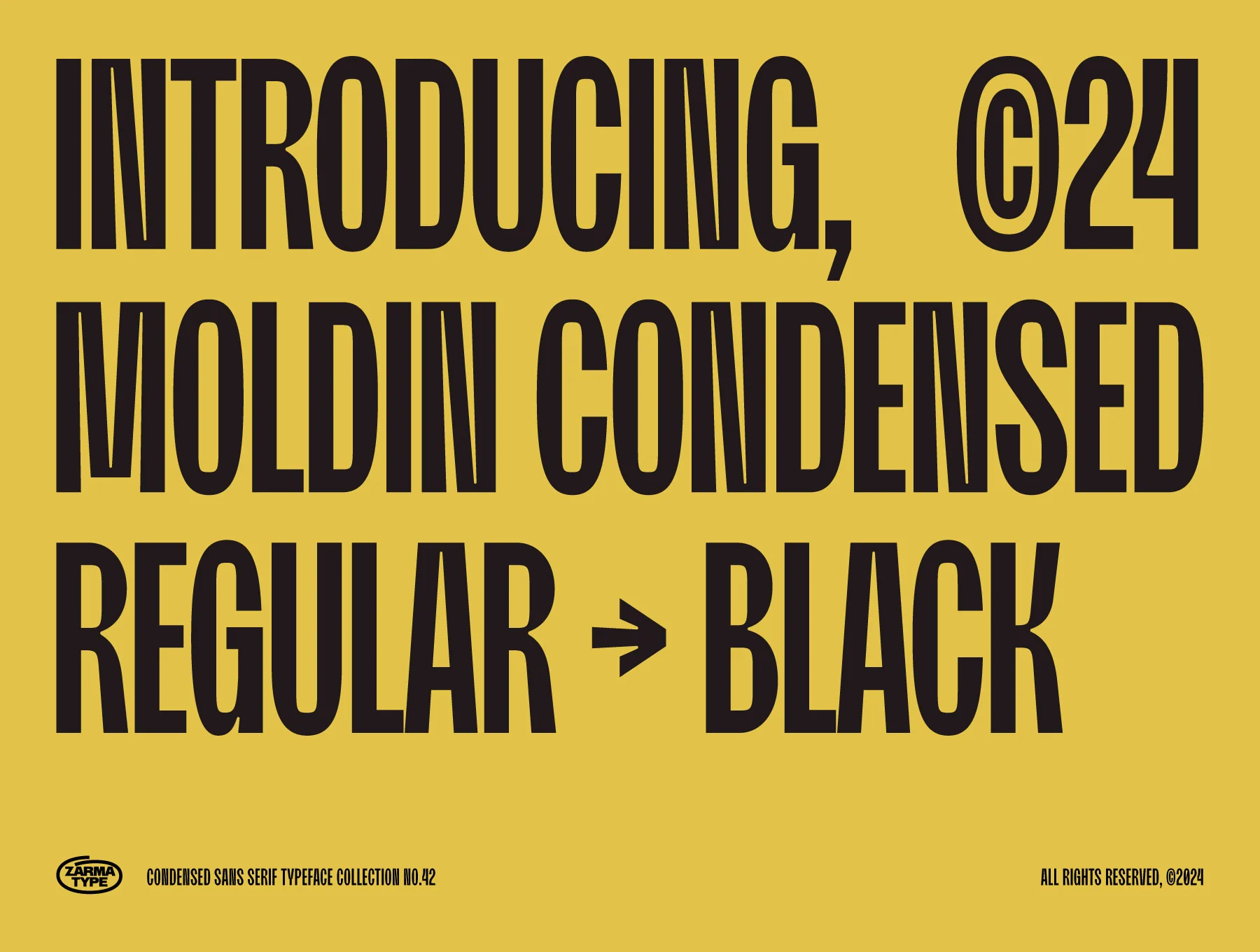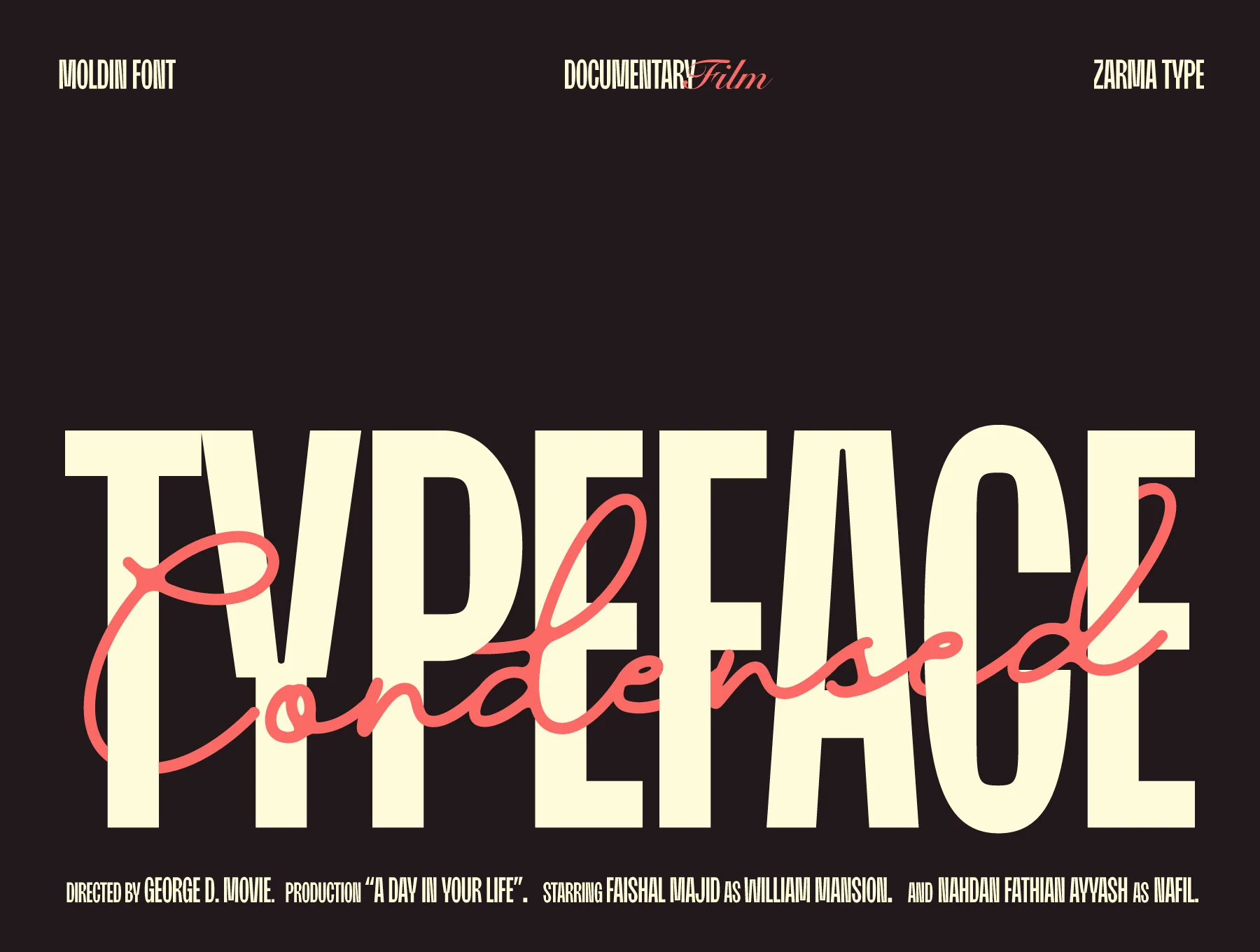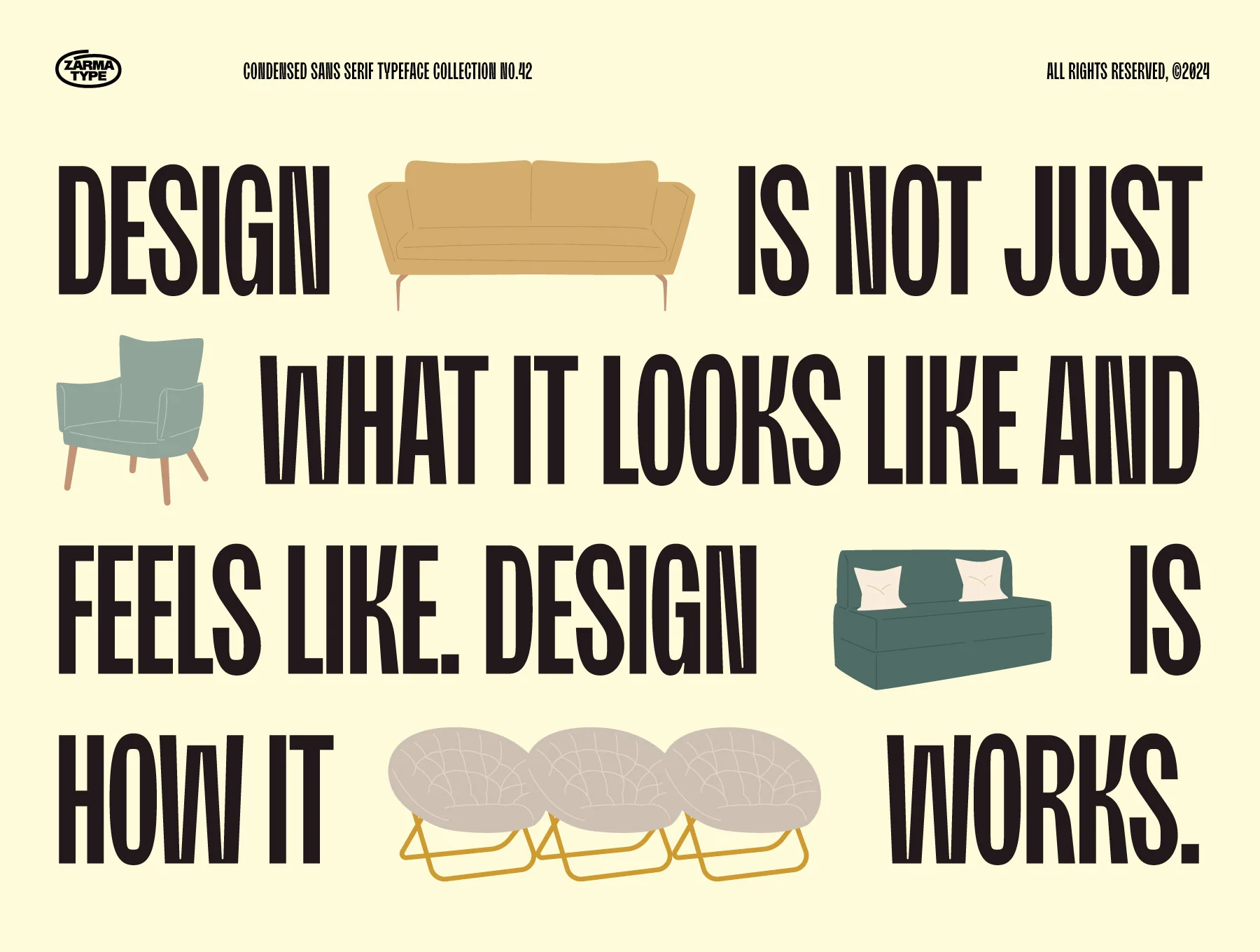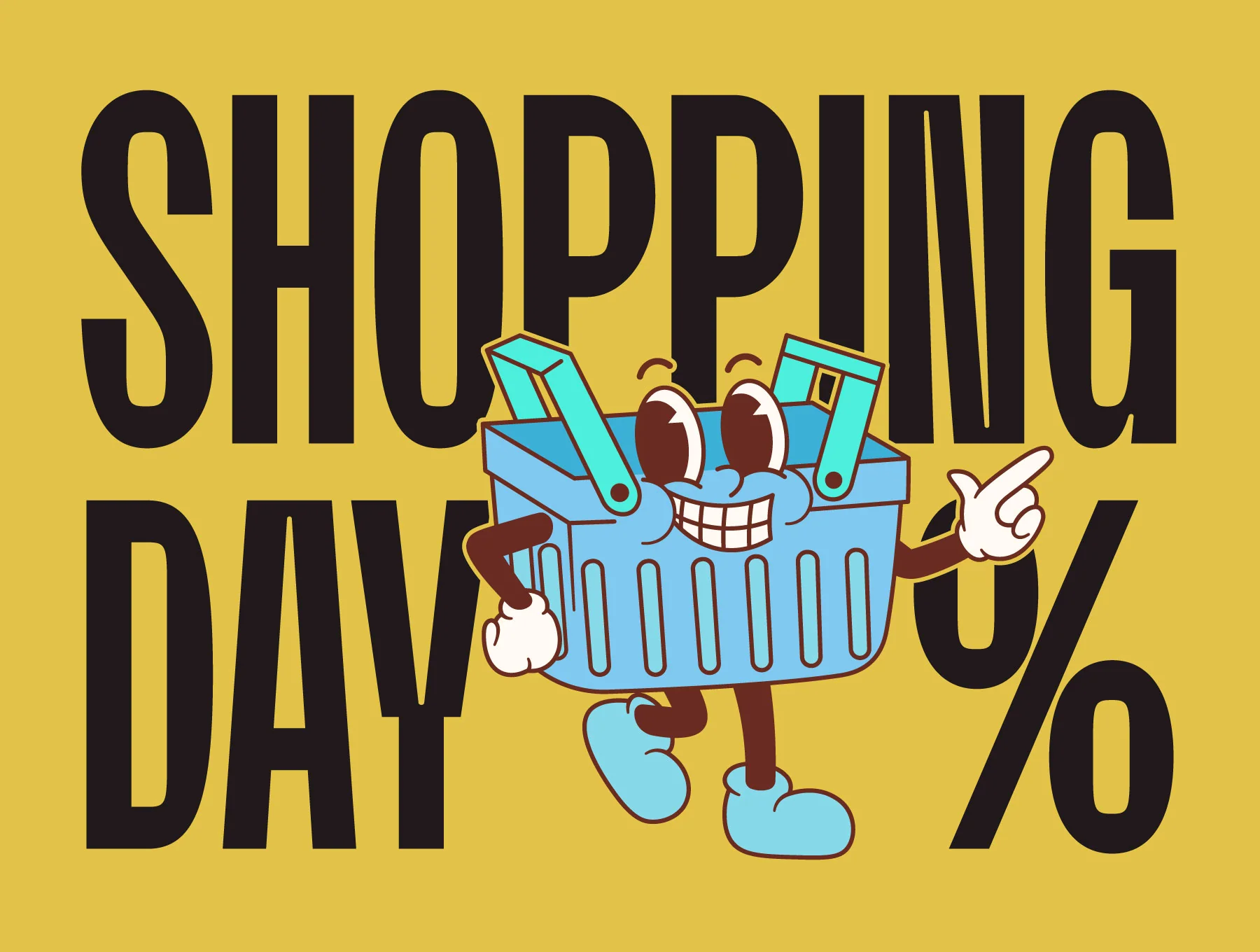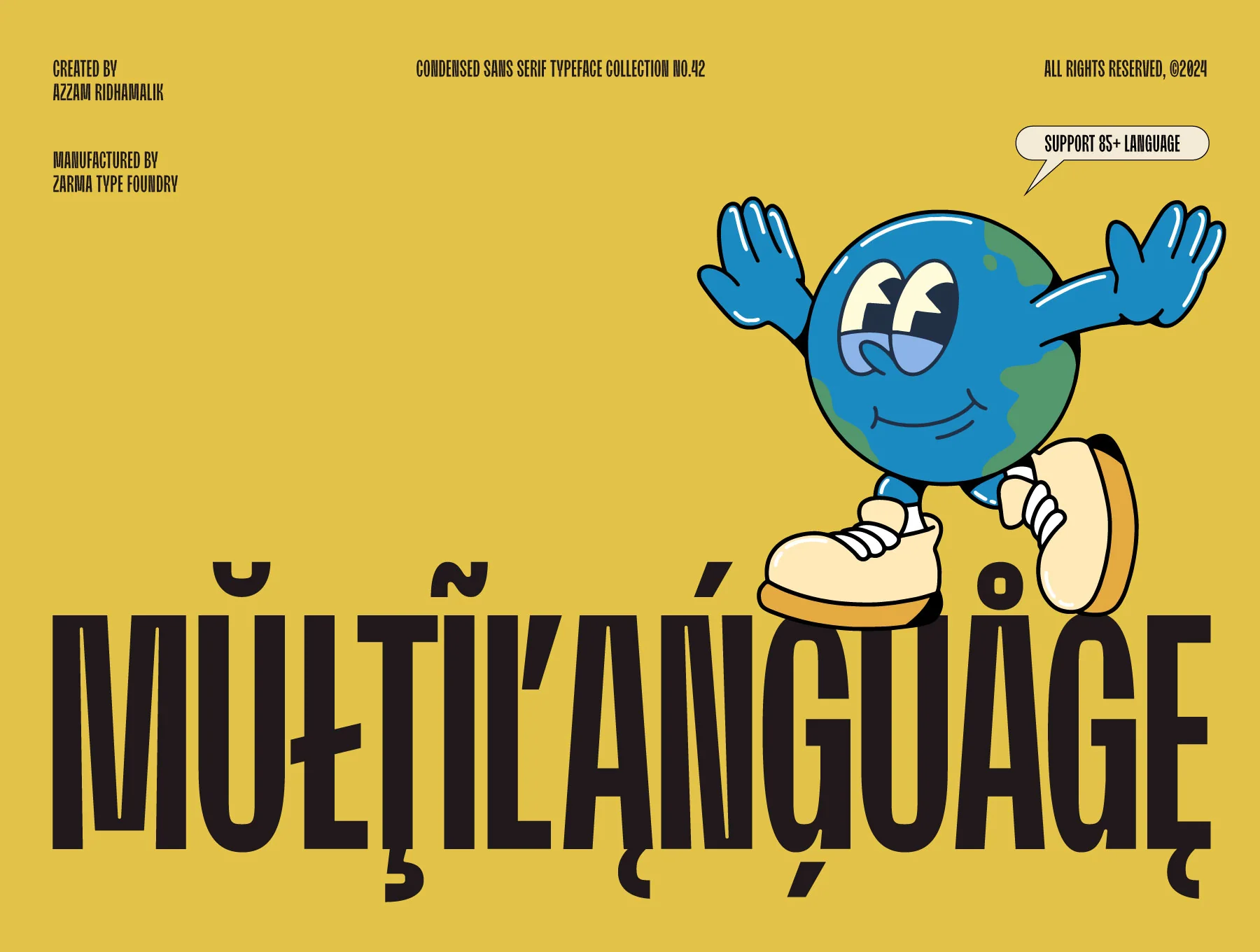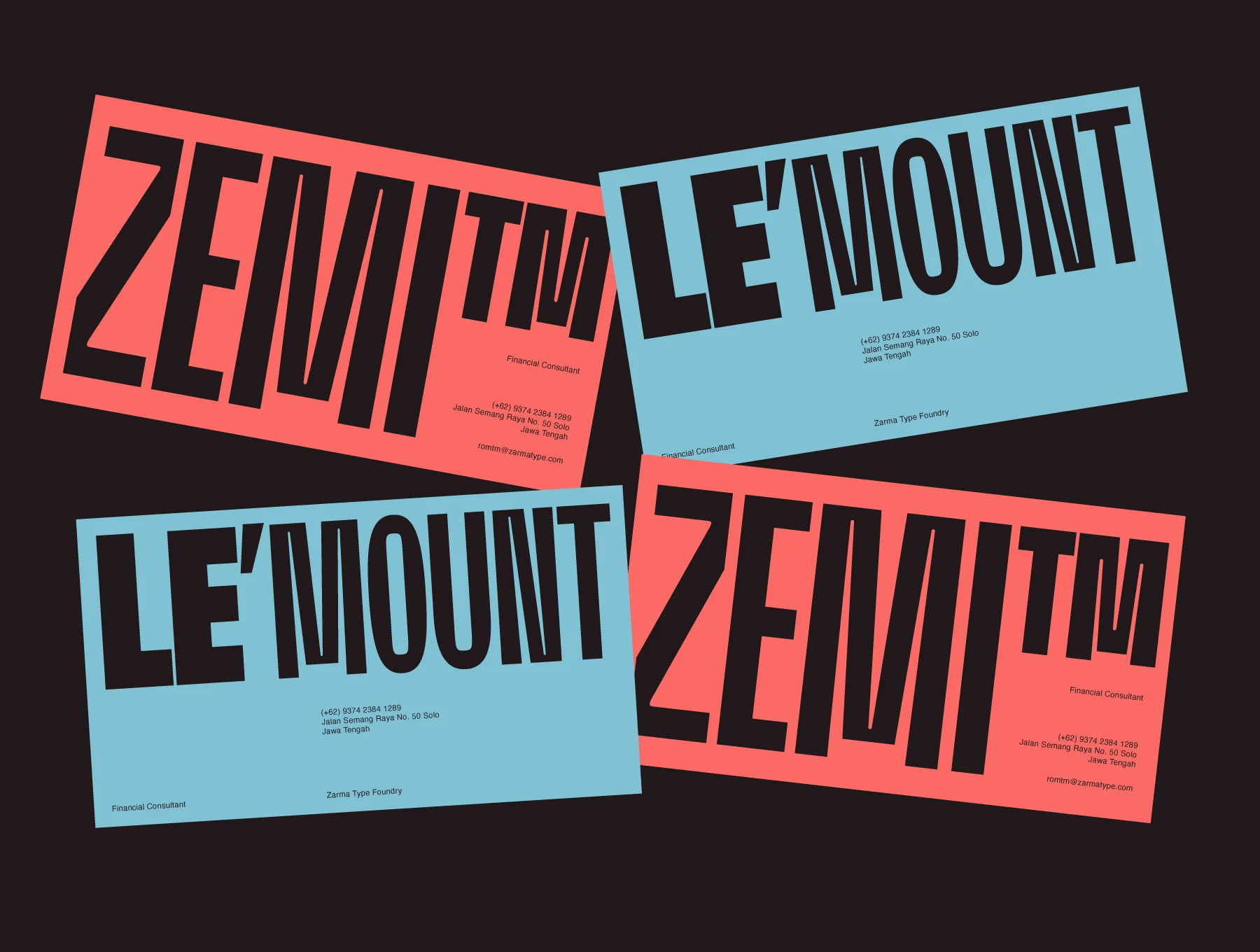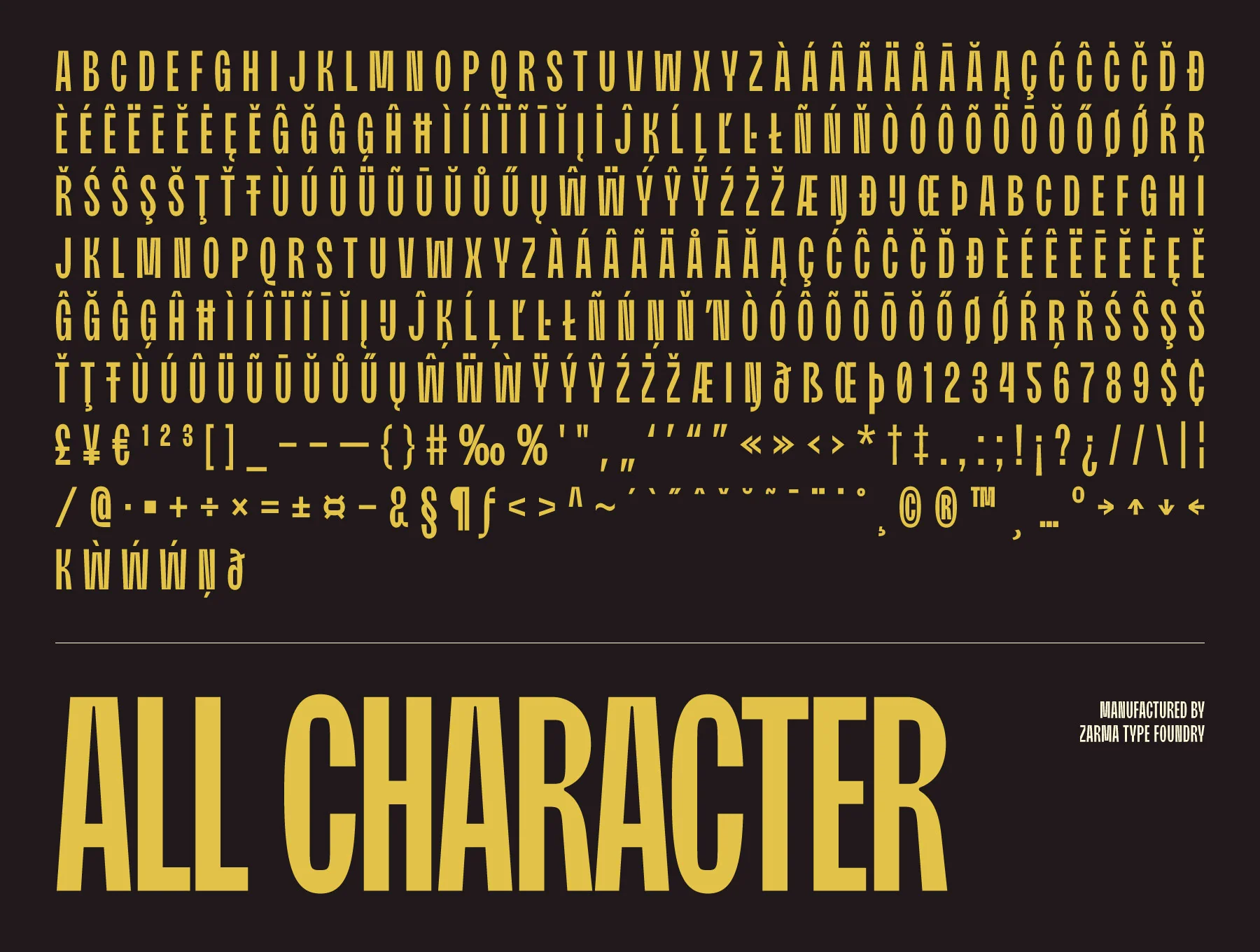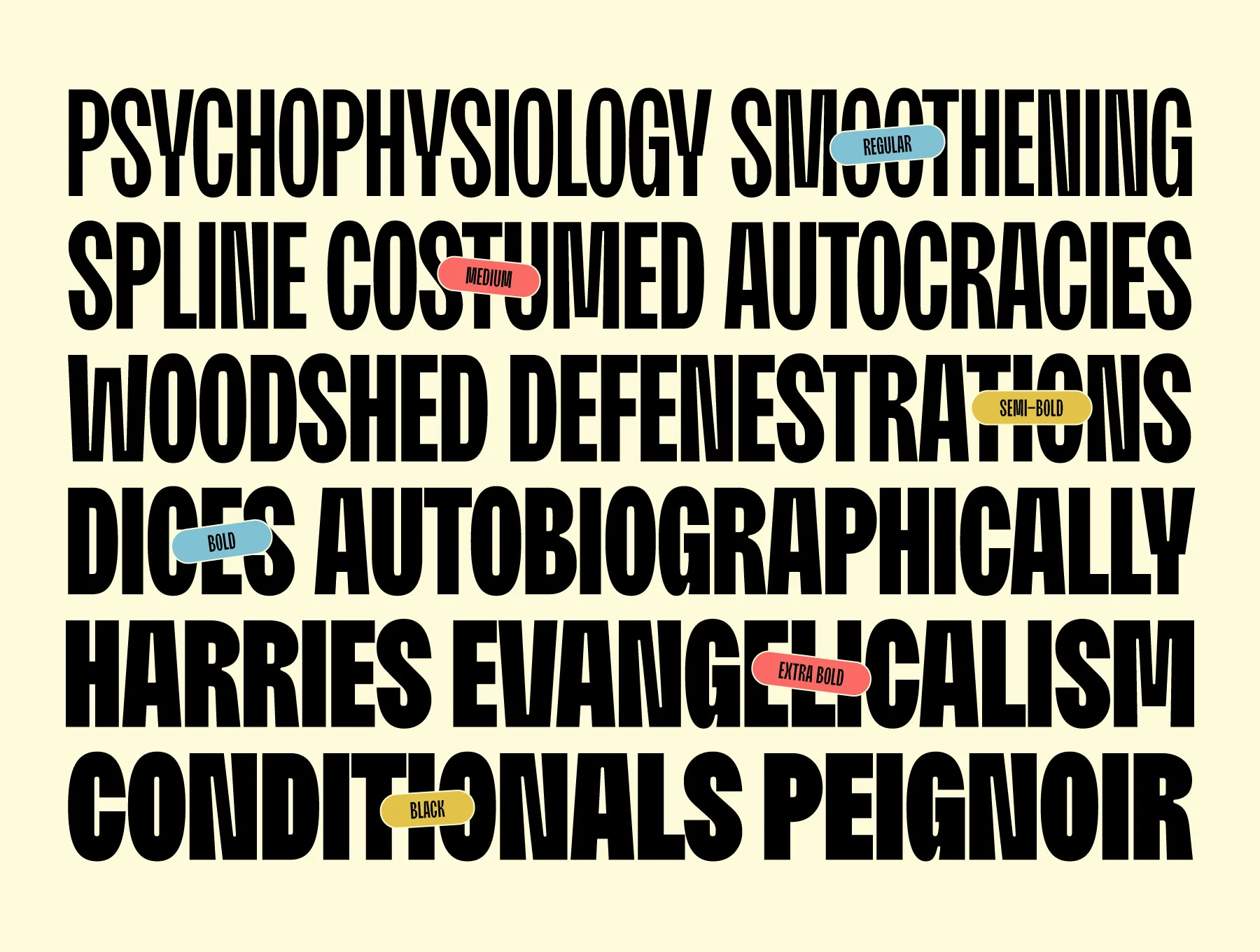
Moldin - Condensed Sans Serif Font
Striking impact, compact force
Six styles: Regular, Medium, Semibold, Bold, ExtraBold, and Black
Includes a variable font edition
OpenType functionality included
Supports multiple languages
Moldin is a strong narrow sans serif family built for high-impact headlines and display use. It comes in six weights, Regular through Black, as static and variable fonts. With industrial geometric styling, clean forms, tuned spacing, multilingual extended Latin, OpenType features and PUA glyphs, it suits branding, posters, editorial, packaging, sports, print and digital projects.